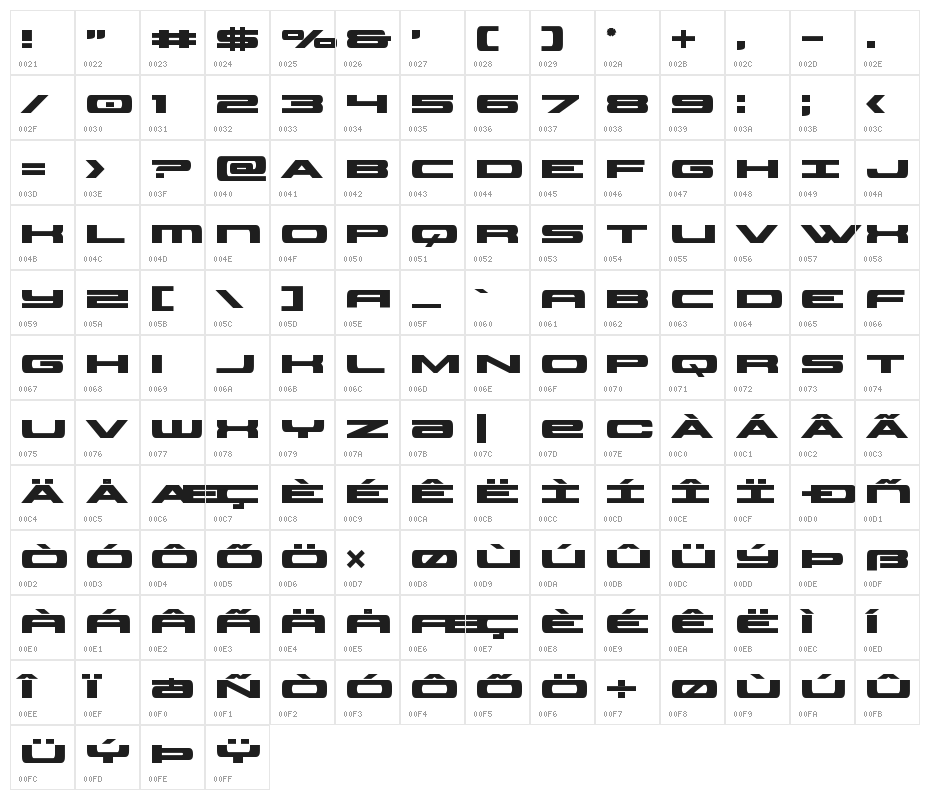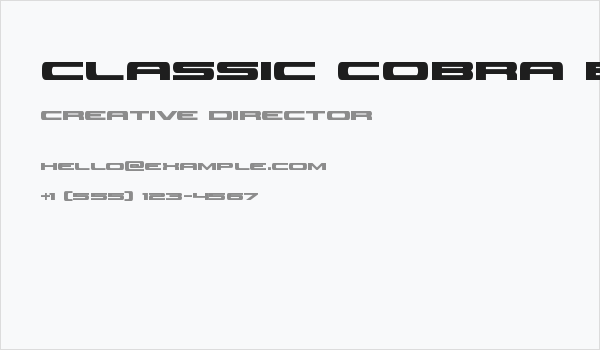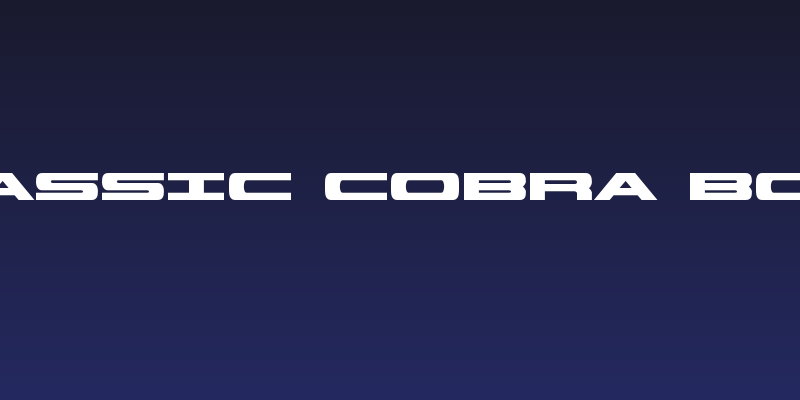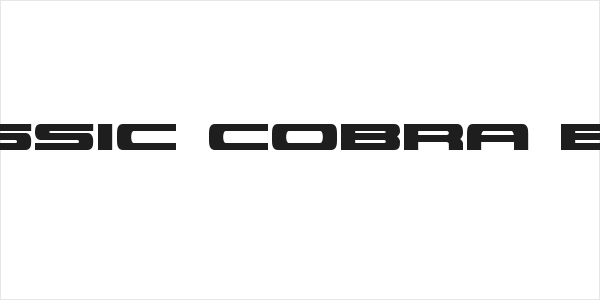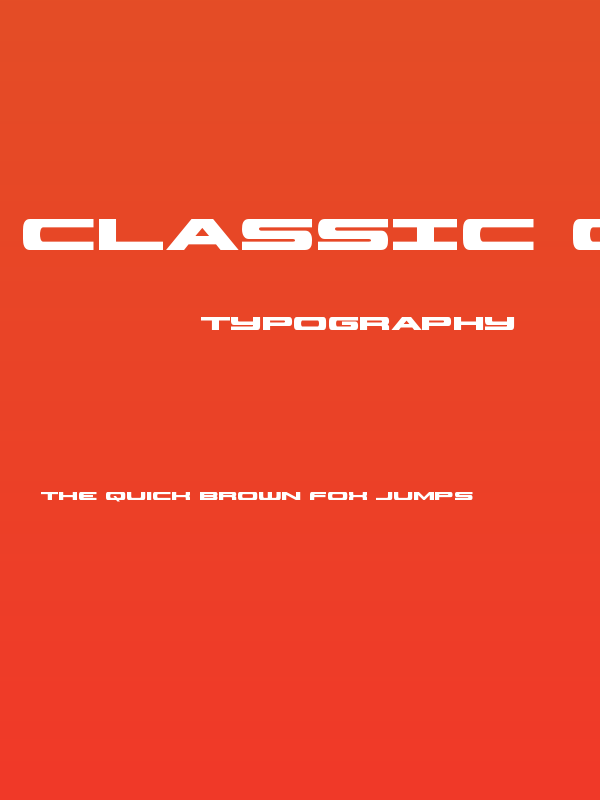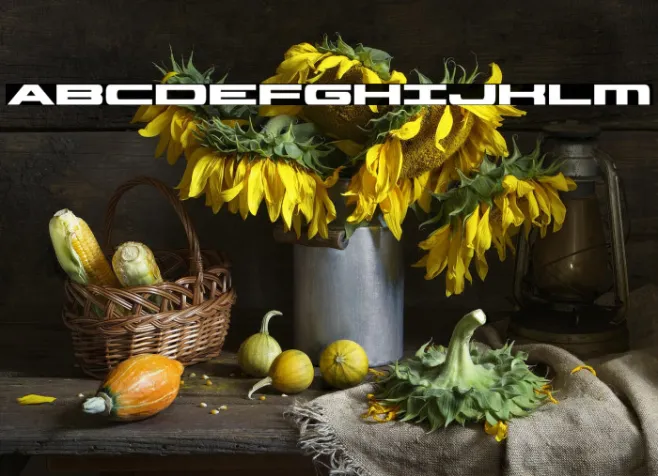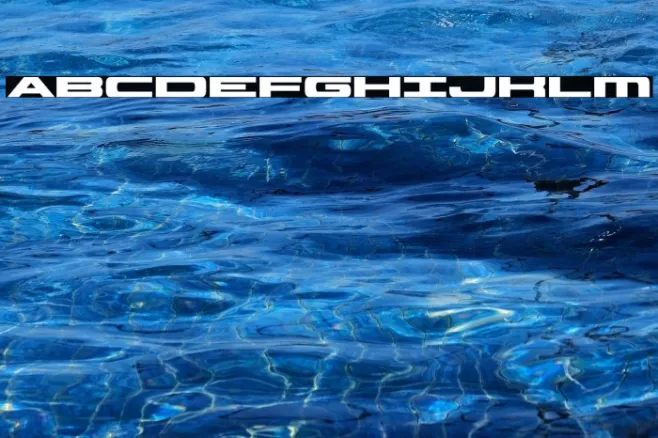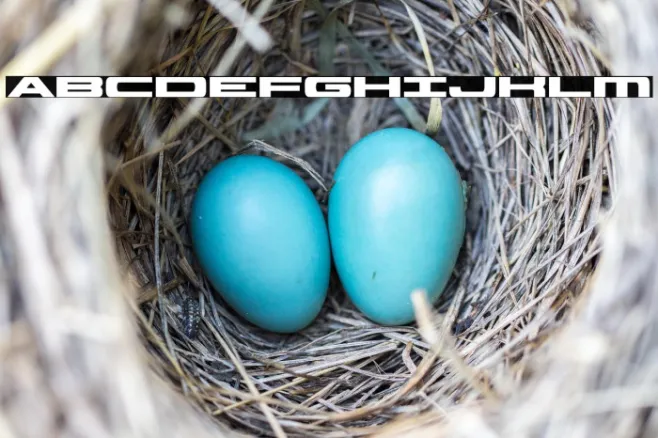
Classic Cobra Bold Font
Classic Cobra Bold Description
This font features a bold and robust design with a distinctly modern and futuristic aesthetic. The characters are wide and have a strong presence, making them ideal for attention-grabbing headlines and logos. The angular and geometric shapes of the letters give it a dynamic and energetic feel. The uppercase and lowercase letters maintain a consistent style, with a uniform stroke thickness that enhances readability. The numerals and special characters are designed to match the boldness and style of the alphabet, ensuring a cohesive look across all text elements.